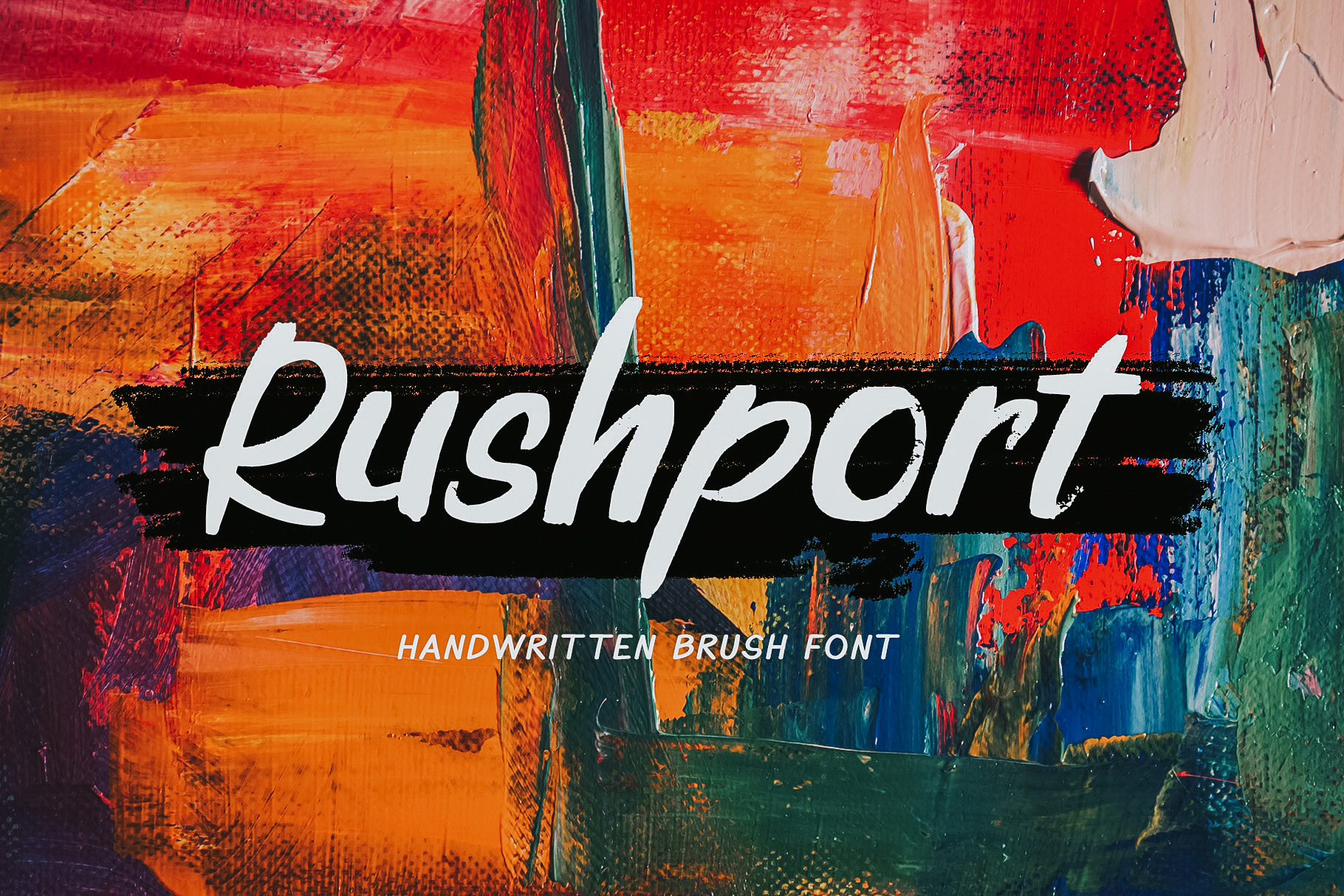
Rushport Handwritten Brush Font
I proudly introduce to you Rushport Handwritten Brush Font, created from rough brush strokes, made manually with hand. Can make it easier to convey the message in your design and create a unique impression of bold and aesthetic looks. This handwritten font is different from other handwritten fonts this font are unique and have point of interesting. This font is perfect for all design concepts with casual or non-formal themes.